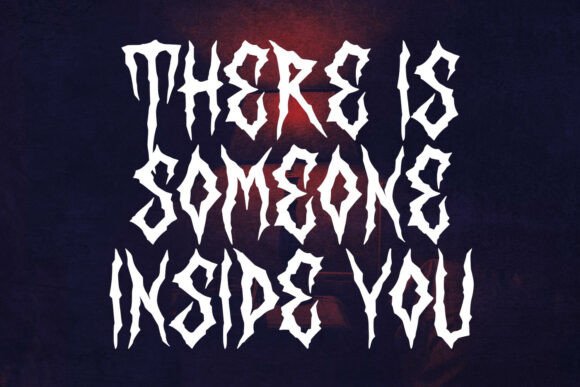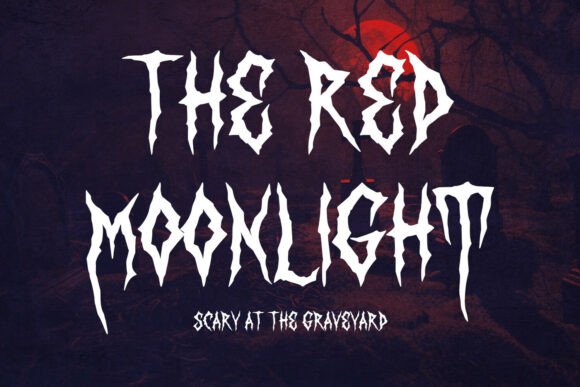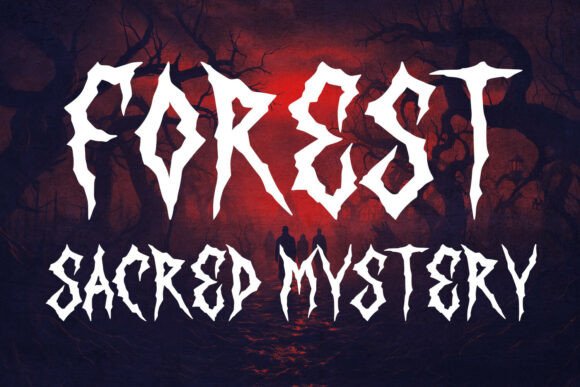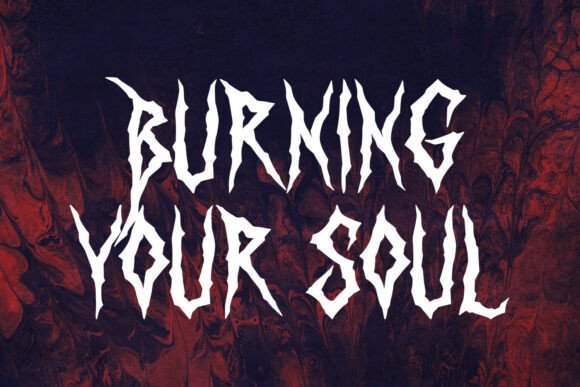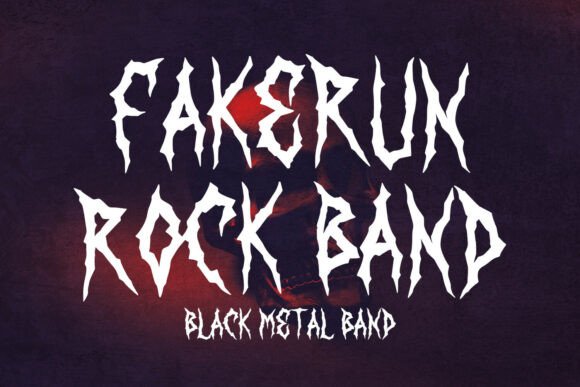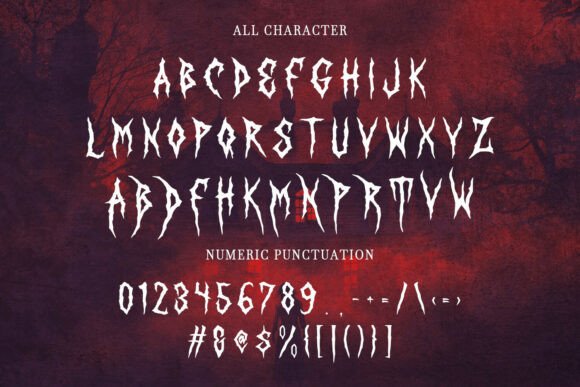
Anhork Font: The Ultimate Horror Display Font for Spine-Chilling Designs
Are you looking for a font that can evoke fear, suspense, and dark mystery in your designs? Look no further than Anhork, a terrifyingly bold horror display font that is perfect for creating unforgettable designs. With its jagged edges and sinister strokes, Anhork is the ideal choice for horror movie posters, Halloween flyers, dark branding, scary book covers, creepy games, and haunted house promotions.
The Menacing Quality of Anhork
Anhork’s sharp, distorted shapes give it a menacing quality that instantly grabs attention and creates spine-chilling vibes. The font’s bold and rugged design makes it perfect for creating designs that require a sense of fear and unease. Whether you’re designing for a thriller, a metal band logo, or eerie social media graphics, Anhork brings the perfect balance of fear and style.
Perfect for Horror and Dark Designs
Anhork is specifically designed to evoke a sense of horror and darkness, making it perfect for designs that require a spooky or eerie feel. The font’s jagged edges and sinister strokes create a sense of tension and fear, making it ideal for:
- Horror movie posters and flyers
- Halloween promotions and decorations
- Dark branding and packaging
- Scary book covers and author logos
- Creepy games and game titles
- Haunted house promotions and advertisements
Why Choose Anhork?
There are many fonts available that claim to be horror-themed, but Anhork stands out from the rest. Here are just a few reasons why:
- Unique Design: Anhork’s design is unlike any other font available. Its sharp, distorted shapes and jagged edges create a truly unique and terrifying look.
- Versatility: Anhork can be used for a wide range of designs, from horror movie posters to social media graphics.
- Easy to Read: Despite its bold and rugged design, Anhork is easy to read, even at small sizes.
- High-Quality: Anhork is a high-quality font that is designed to be used in professional designs.
Tips for Using Anhork
Here are a few tips for using Anhork in your designs:
- Use it sparingly: Anhork is a bold font, so use it sparingly to avoid overwhelming your design.
- Pair it with a simple font: Pair Anhork with a simple font to create contrast and make your design more readable.
- Experiment with colors: Anhork looks great in bold, bright colors, but it can also be used in more muted tones to create a sense of eeriness.
Anhork is a terrifyingly bold horror display font that is perfect for creating unforgettable designs. With its jagged edges and sinister strokes, Anhork is the ideal choice for horror movie posters, Halloween flyers, dark branding, scary book covers, creepy games, and haunted house promotions. Whether you’re a designer or a crafter, Anhork is a great addition to your font collection.